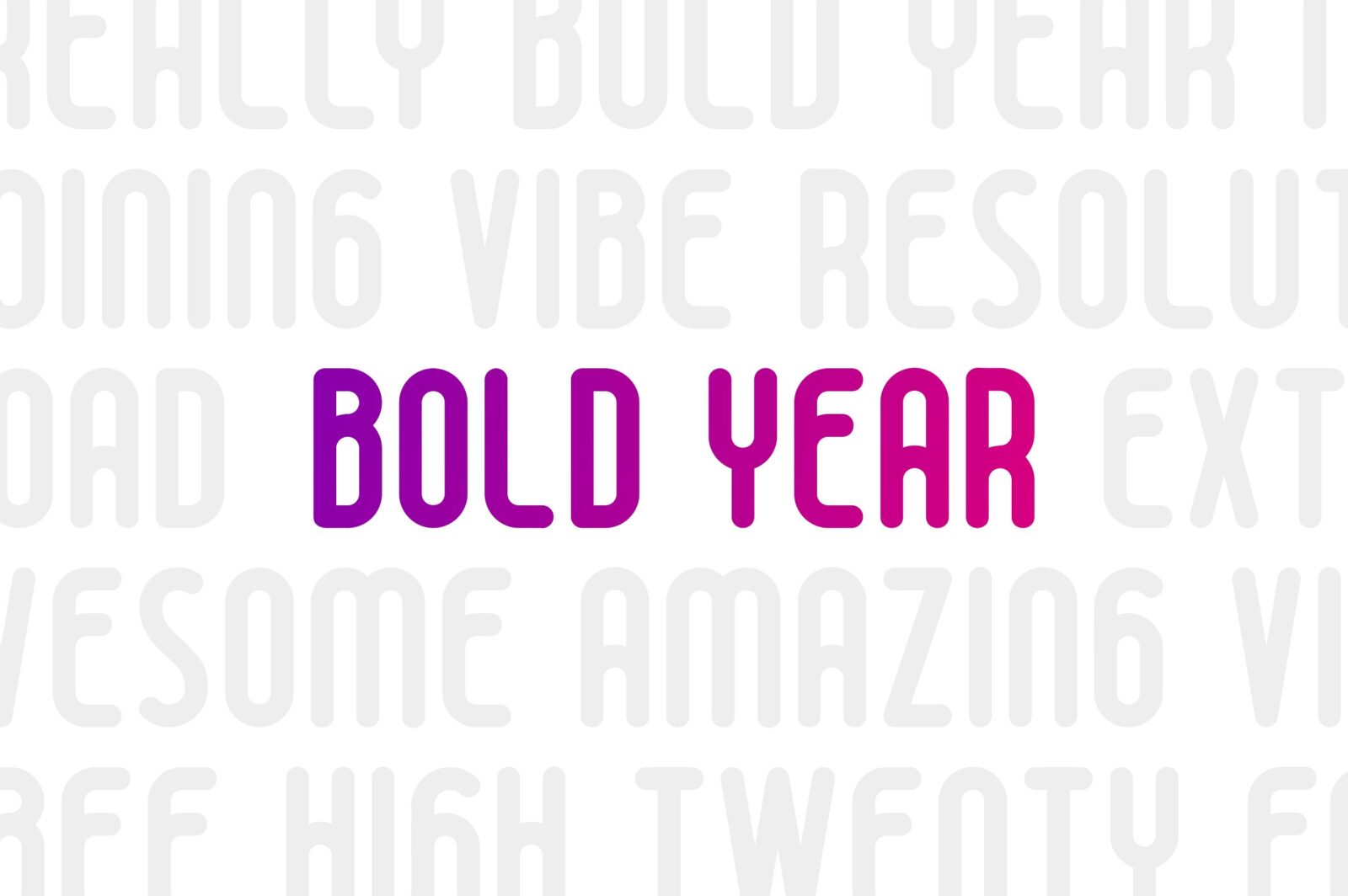
The Bold Year Font: A Designer’s New Best Friend
I’ll never forget the time I was working on a last-minute project for a client, and I just couldn’t find the right font. I had scrolled through page after page of Google Fonts, and nothing seemed quite right. That was until I stumbled upon the Bold Year font. Its sleek, condensed design immediately caught my eye, and I knew I had found the perfect fit. In this article, I’ll share my experience with the Bold Year font, and show you how to make the most of its amazing features.
• ✨ Versatility: Bold Year is a bold condensed font that suits a wide range of creative project types, from digital to print.
• ✅ Legibility: This font is highly legible, making it perfect for use in both large and small formats.
• 💻 Digital and Print Friendly: Bold Year looks great in both digital and print, making it a great choice for any project.
While I love the Bold Year font, there are a few things to keep in mind. For example:
• 🤔 Limited Stylistic Options: While Bold Year has a great range of uses, it doesn’t have a huge range of stylistic options. However, its simplicity is part of its charm.
• ⚠️ Glyph Limitations: Some users have reported that the font could benefit from a wider range of glyphs. However, the existing glyphs are well-designed and easy to use.
The Story Behind Bold Year
The Bold Year font was designed with the modern creative in mind. Its sleek and condensed design makes it perfect for a wide range of projects, from digital to print. The designer behind Bold Year was inspired by the need for a font that could keep up with the fast-paced world of modern design.
Q: What is the Bold Year font?
A: The Bold Year font is a bold condensed font designed for use in a wide range of creative projects.
Q: Is Bold Year suitable for digital and print projects?
A: Yes, Bold Year is highly legible and looks great in both digital and print formats.